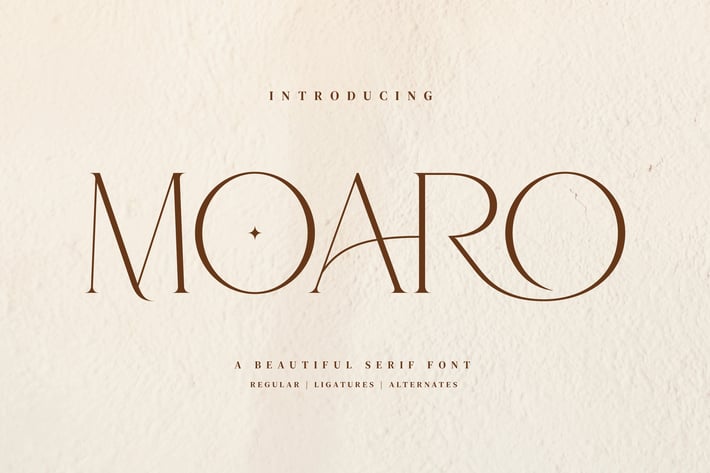
Moaro Beautiful Serif Font
Moaro Stylish Ligature Typeface, inspired by the famous minimalist logo perfect for the purposes of designing templates, brochures, videos, advertising branding, logos and more.